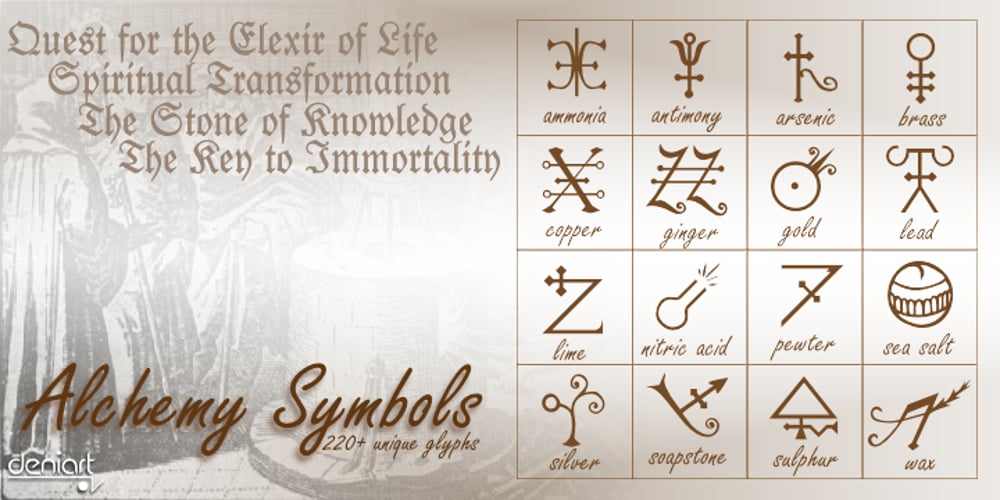
Alchemy Symbols Font Family was designed by Denise Koehler and published by Deniart Systems. Alchemy Symbols contains 6 styles and family package options. The Alchemy Symbols Series contains over 220 unique characters based on the cruptic symbols used by Alchemists in the middle-ages. Referred to as steganographic and spagyric signs, the series includes symbols representing metals, processes, instruments weights, materials and spirits. Note: interpretation guide included in pdf format